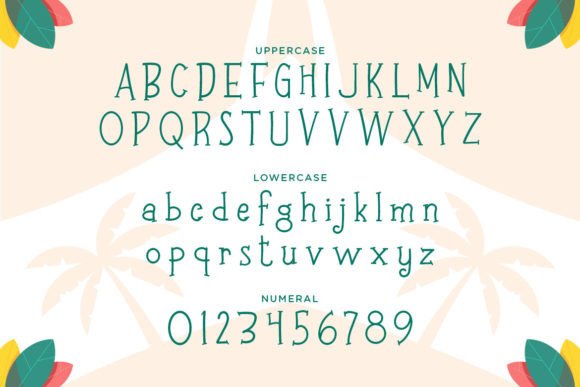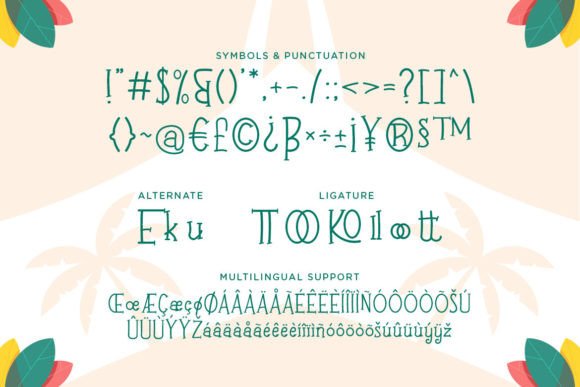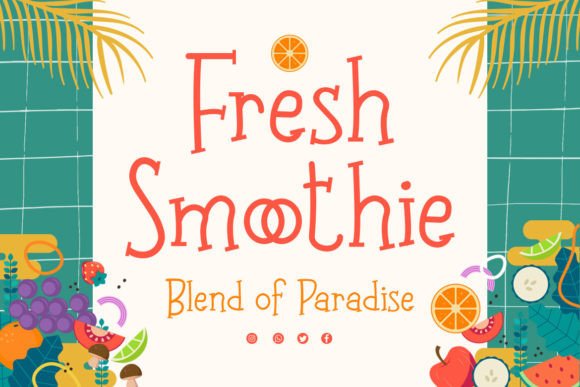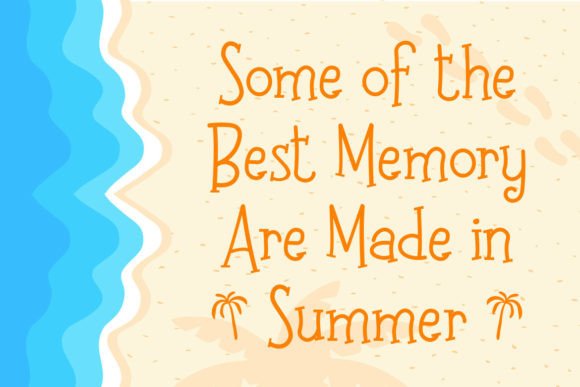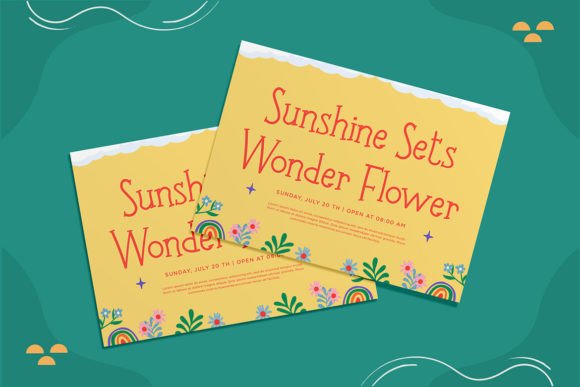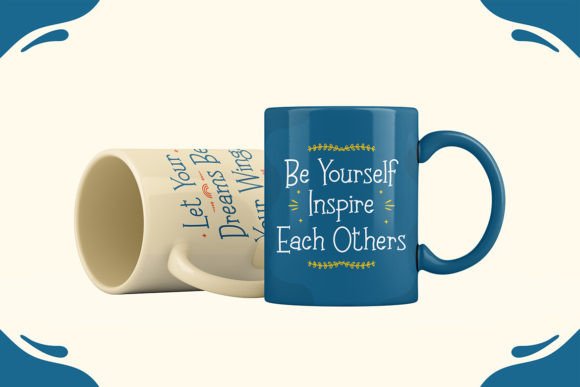
Introducing Estelival Font: The Ultimate Holiday Comic Font for Your Festive Designs
Are you tired of using the same old fonts for your holiday designs? Look no further! We’re excited to introduce “Estelival,” a holiday comic font that’s sure to bring joy and whimsy to your seasonal creations. With its quirky letterforms and cheerful demeanor, Estelival captures the spirit of the holidays in every character, making it the perfect addition to your design toolkit.
The Perfect Font for Holiday Designs
Estelival is designed to infuse your holiday designs with festive charm and playful appeal. Whether you’re crafting greeting cards, party invitations, festive posters, or social media graphics, this font adds a touch of fun and lightheartedness to your projects. Its comic-inspired style and playful personality make it the ideal choice for designers and crafters looking to create eye-catching and engaging holiday content.
Key Features of Estelival Font
- Quirky Letterforms: Estelival’s unique letterforms are designed to bring a smile to your face. Each character is carefully crafted to convey a sense of joy and playfulness, making it perfect for holiday designs.
- Cheerful Demeanor: The font’s cheerful demeanor is infectious, spreading happiness and cheer to anyone who sees it.
- Festive Charm: Estelival’s festive charm is undeniable, making it the perfect choice for holiday designs that need a touch of magic.
- Playful Personality: The font’s playful personality shines through in every character, ensuring that your holiday creations stand out with festive flair.
Why Choose Estelival Font?
So, why choose Estelival font for your holiday designs? Here are just a few reasons:
- Unique and Eye-Catching: Estelival’s quirky letterforms and cheerful demeanor make it a standout font that’s sure to grab attention.
- Versatile: The font is perfect for a wide range of holiday designs, from greeting cards to social media graphics.
- High-Quality: The font is designed to high standards, ensuring that it looks great in any design.
Tips for Using Estelival Font
Here are a few tips for getting the most out of Estelival font:
- Experiment with Colors: Estelival looks great in a wide range of colors, so don’t be afraid to experiment and find the perfect combination for your design.
- Pair with Other Fonts: The font pairs well with other fonts, so try combining it with a serif font for a unique look.
- Use in Digital and Print Designs: Estelival is perfect for both digital and print designs, making it a versatile addition to your toolkit.
In conclusion, Estelival font is the perfect choice for designers and crafters looking to add a touch of festive charm and playful appeal to their holiday designs. With its quirky letterforms, cheerful demeanor, and playful personality, this font is sure to bring joy and whimsy to your seasonal creations. So why wait? Step into the holiday spirit with Estelival and let your designs shine with its joyful and whimsical charm.